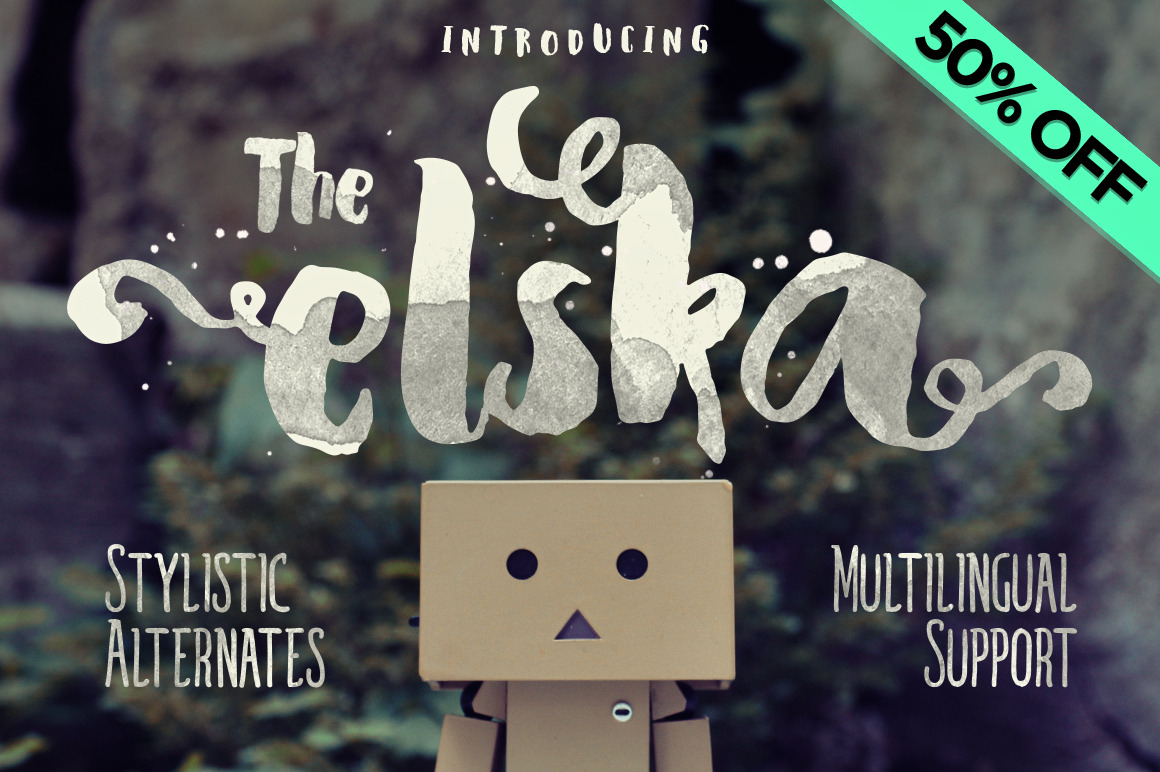
Elska Watercolor Brush font
Say hello to my cutie lil' friend Elska
Elska is a blobby yet cute brush typeface, with implementation of an honest handwriting using brush and inks and with no boundaries, just feel the 100% true love from an adorable hand of hoomans.
- Lots of Stylistic Alternates
- Cuteness Overload